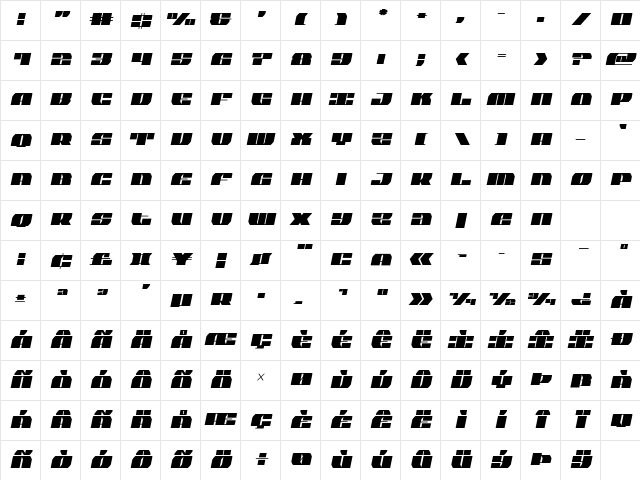
Joy Shark Semi-Condensed Semi-Italic Free Font
Joy Shark Semi-Condensed Semi-Italic Semi-Condensed Semi-Italic
Style: Semi-Condensed Semi-Italic
Design Context for Joy Shark Semi-Condensed Semi-Italic
Joy Shark Semi-Condensed Semi-Italic is a composed and adaptable typeface that performs quietly and consistently across a wide range of design contexts. The slanted form adds forward momentum and visual energy. Its narrow stance lets it pack a punch even in space-constrained designs.
Pro Tip: Use Joy Shark Semi-Condensed Semi-Italic for emphasis, pull quotes, and subheadings where its slanted energy can add rhythm to the layout.